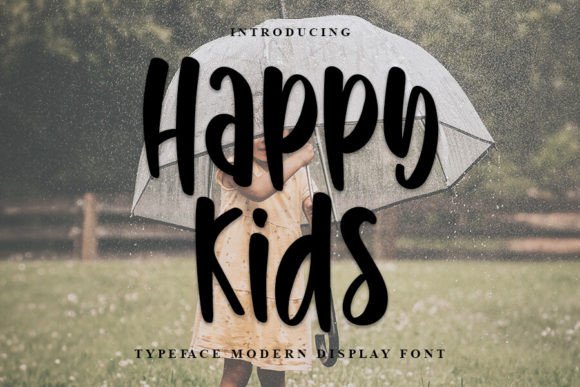
Introducing Happy Kids Font, the perfect choice for all your creative endeavors! This casual and relaxed handwritten display font will instantly captivate your heart with its charming and versatile style. Created by the talented team at Inermedia STUDIO, Happy Kids Font is sure to bring a touch of joy to your design projects.
Are you looking to add a hint of elegance to your wedding invitations? Happy Kids Font is the answer. Its graceful strokes and flowing characters will beautifully complement any romantic theme, making your invitations truly unforgettable. Wow your guests with a font that exudes love and happiness.
But that's not all – Happy Kids Font is not limited to just wedding invitations. Let your imagination run wild and explore its endless possibilities. Create stunning stationary art that stands out from the crowd, thanks to the font's unique and eye-catching appeal. Whether it's personalized notepads, journals, or greeting cards, Happy Kids Font will add that extra touch of creativity.
In the era of social media dominance, it's important to make a lasting impression with your posts. Stand out from the noise and grab attention with Happy Kids Font. Its playful yet sophisticated style will make your content pop, leaving your followers wanting more. Get ready to receive an influx of likes and comments as you showcase your creativity with this font.
Happy Kids Font is not just a font – it's a statement. It speaks volumes about your dedication to quality and your commitment to making your designs shine. Its carefully crafted details and smooth curves make it a true work of art. Elevate your designs and leave a lasting impression on your audience.
Unleash your creativity and make a bold statement with Happy Kids Font. Embrace the joy and happiness it brings, and let your designs speak for themselves. Whether you're a fashion designer, a social media influencer, or simply someone who appreciates the beauty of fonts, Happy Kids Font is your perfect companion. Get ready to create something extraordinary.